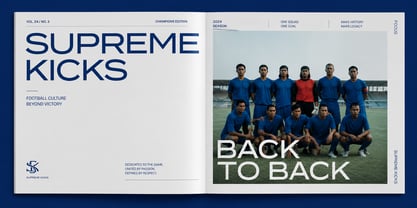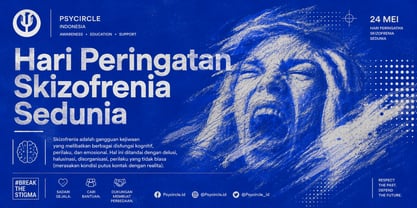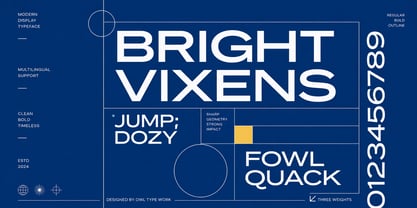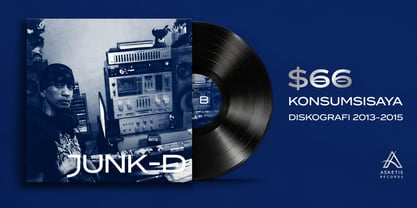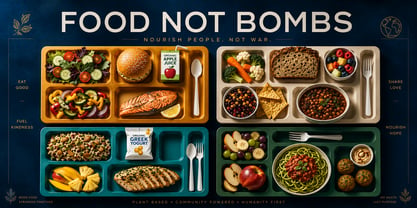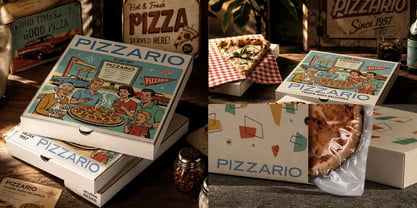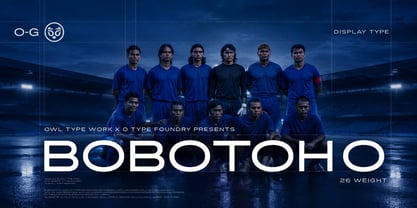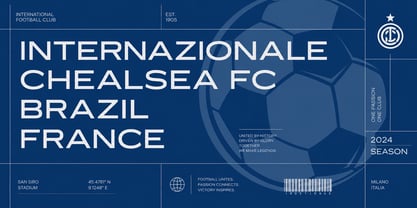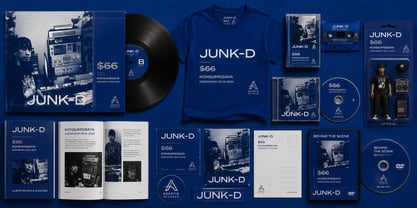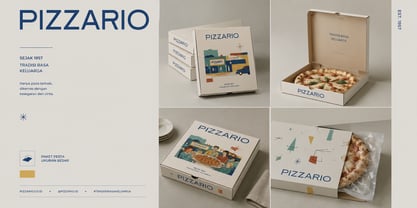
Alienasi O
The Alienasi O Font Family was designed by Galang Persada and published by O Type Foundry. Alienasi O contains 1 styles. More about this family
Introducing Bobotoh O, a highly versatile and expansive wide sans-serif display typeface family. Born from a blend of strong structural geometry and clean, modern aesthetics, Bobotoh O is designed to command attention without sacrificing legibility. Where most display fonts offer a handful of styles, Bobotoh O stretches the boundaries with a massive collection of 26 distinct weights. This extensive range gives designers unprecedented, fine-tuned control over visual hierarchy, contrast, and impact. Whether you are designing high-energy sports branding, gritty editorial layouts, sleek food packaging, or impactful album artwork, this typeface adapts seamlessly to your creative vision. Its extended proportions make it naturally suited for wide spaces, allowing your headlines, logos, and posters to stretch out and make a bold statement. Key Features: 26 Comprehensive Weights: Ranging from delicate thin lines to massive, blocky ultra-blacks. Extended Proportions: Perfect for filling wide layout spaces and creating cinematic, panoramic text effects. Geometric Precision: Clean, sharp, and structured, leaning subtly into a modern Swiss-style aesthetic. Highly Versatile: Tested and proven across multiple industries—sports, music, F&B, automotive, and streetwear. 26 Weights. Infinite Possibilities. Test drive Bobotoh O today and secure the Complete Family Bundle for your typographic arsenal.
O Type Foundry is an independent type foundry based in Bandung, Indonesia, creating retail typefaces for designers, studios, and brands worldwide. Founded by Galang Persada, the foundry develops typefaces for visual identity, logo design, editorial design, packaging, posters, digital products, and cultural projects. Its library explores geometric sans serifs, contemporary grotesques, expressive display faces, and experimental lettering systems. O Type Foundry is driven by the belief that type is not only a visual asset, but a strategic voice for brands and creative work. Each font is crafted to balance personality, usability, and commercial relevance.